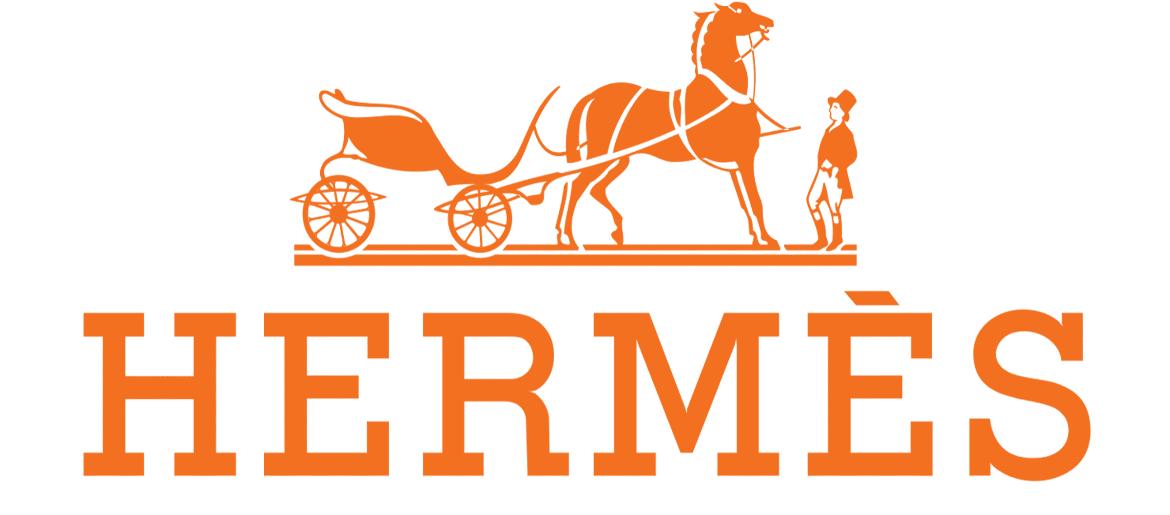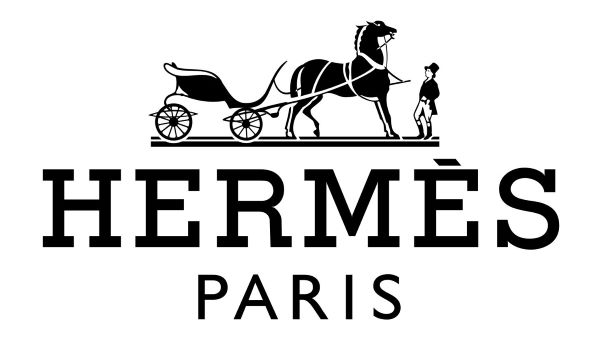
Hermes Font
What Font is Hermes?
Hermès Font showcases timeless elegance and sophistication, perfectly reflecting the luxury fashion house’s heritage. The font used in the Hermès logo is most likely Memphis CYR Bold, a commercial typeface by Linotype known for its clean geometric structure and refined slab-serif design. However, there is also a free alternative font available for designers who wish to recreate the Hermès aesthetic in personal projects. This font captures the brand’s blend of classic French refinement and modern luxury, making it ideal for fashion or high-end branding work.
About Hermès
Hermès is a French luxury brand founded in 1837 by Thierry Hermès, renowned for its craftsmanship and timeless design. Originally specializing in equestrian leather goods, Hermès has grown into a global symbol of prestige, offering handbags, scarves, perfumes, and ready-to-wear fashion. The brand’s commitment to quality, heritage, and artisanal excellence continues to define its reputation as one of the world’s most iconic fashion houses.